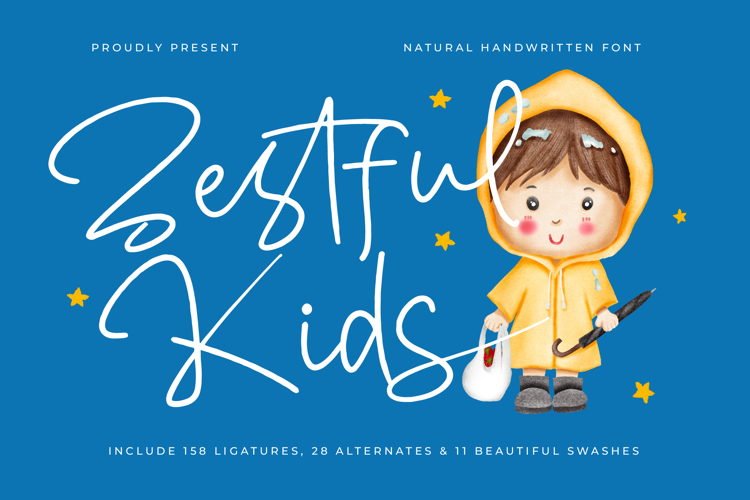
Jestful Kids - Natural Handwritten Font
Jestful Kids Italic
Jestful Kids
Jestful Kids - Natural Handwritten Font. This signature script captures the authentic, rapid motion of genuine handwriting, delivering a compelling sense of playfulness and immediacy. Its lively energy and thin, energetic strokes make it an indispensable choice for projects requiring a touch of personalized warmth and creative whimsy, ensuring your message is not just read, but felt.